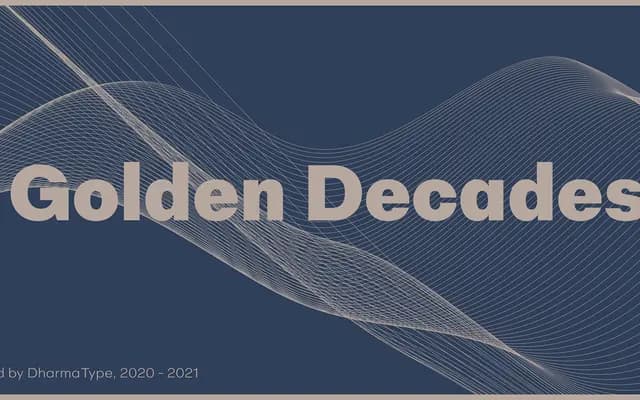
Golden Decades specimen from Dharma Type
A geometric sans with rounded bowls and open counters, drawing on Swiss modernist principles across eight weights with matching italics.
Built on the functionalist legacy of Swiss modernism, this geometric sans prioritises clarity and neutrality without drifting into sterility. Rounded bowls and open counters give it a measured approachability that works across editorial layouts, digital interfaces and branding. Language support covers Latin Extended and basic Cyrillic, with a stylistic alternate for the lowercase 'a' available via OpenType.
Described explicitly as a geometric, minimal sans-serif rooted in Swiss modernism and the functionalist traditions of the Industrial Revolution through the Swiss Style period.